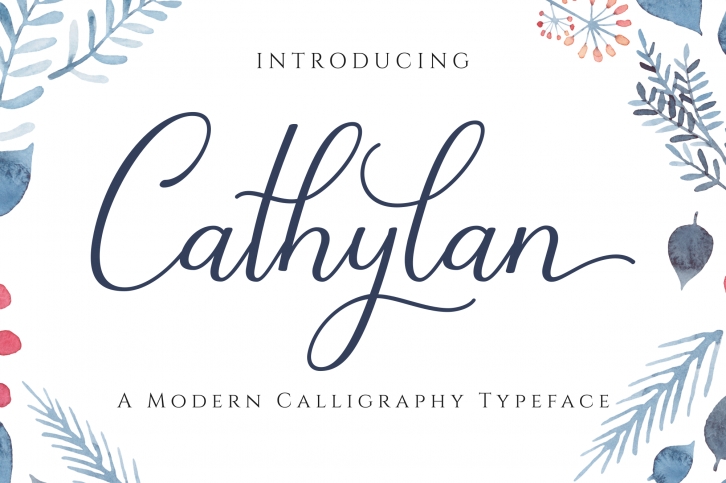
Cathylan is a trendy and unique font with an authentic style. It was designed by Her Letter and it's a great choice for creative people who need such a font. It was released on July 5, 2019 and the file size is 19.97 MB. Cathylan will add an organic vibe to any design idea!